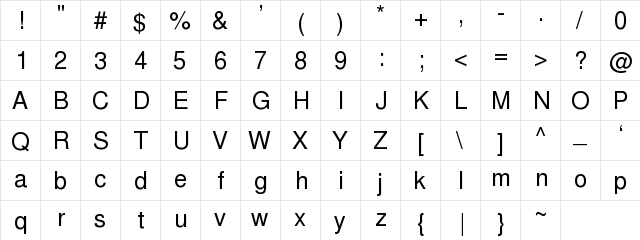
MalOtf Book
Design Context for MalOtf Typeface
MalOtf offers clean, dependable letterforms without strong stylistic allegiance, making it a practical choice for designers who need flexibility.
Pro Tip: Use MalOtf in both headline and body roles to test its range before committing to a single application.